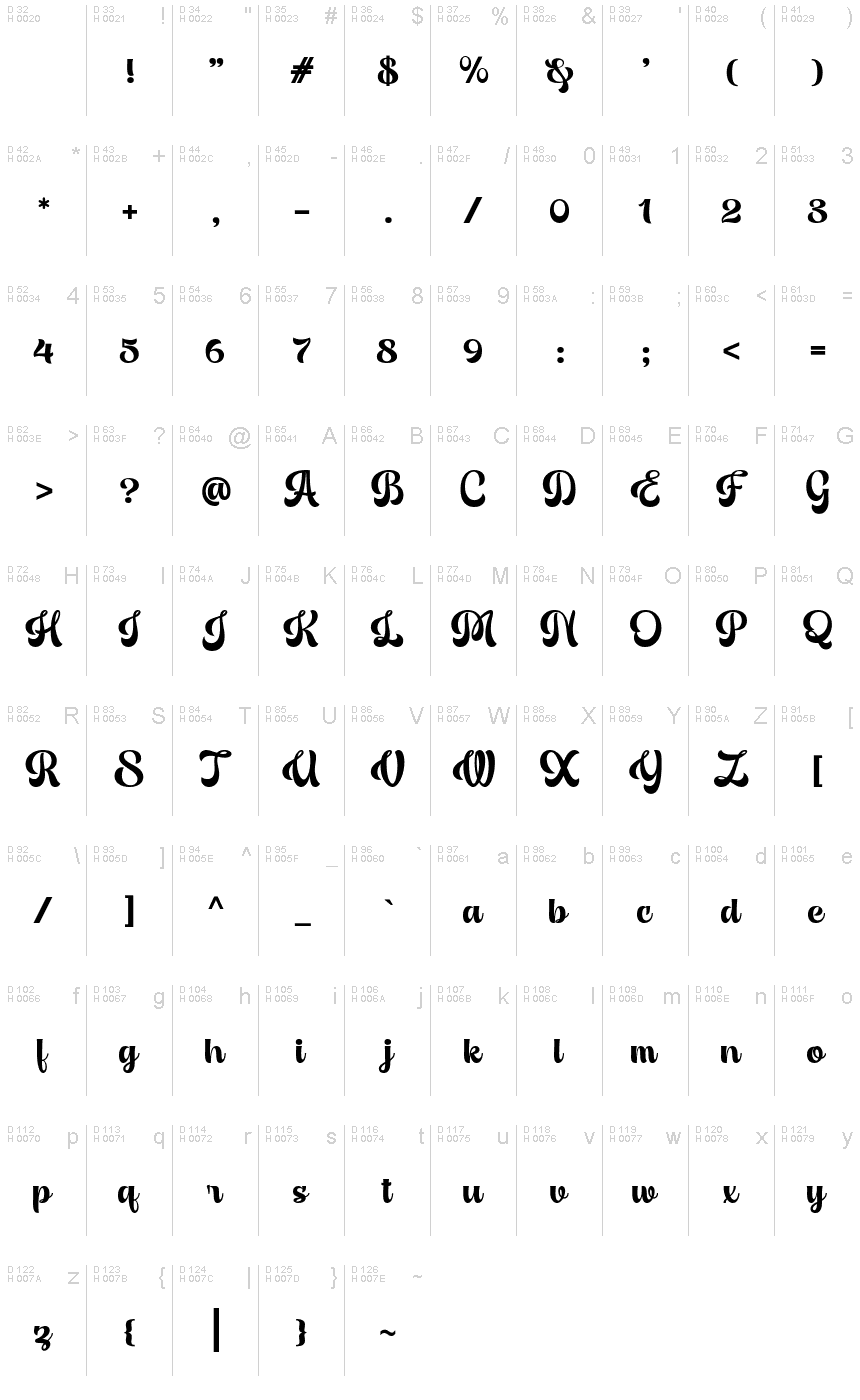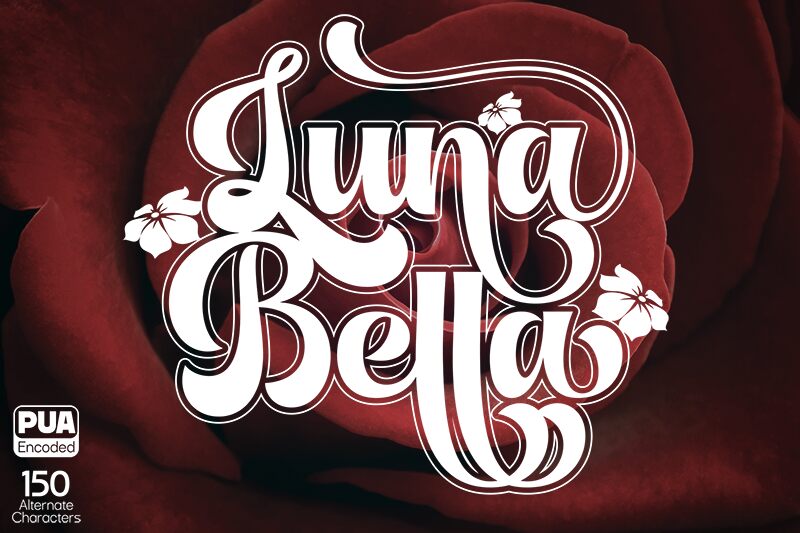
Luna Bella Regular
Luna Bella, the adorable brush font by Sign Studio, is here to add a touch of cuteness and boldness to your projects. With its playful strokes and bold weight, this font is perfect for children's book covers, whimsical invitations, quirky logos, and charming greeting cards. Let Luna Bella bring a delightful charm to your designs while capturing the attention of your audience. Its versatility allows it to effortlessly enhance any project that needs a dose of fun and creativity. Get ready to elevate your designs with Luna Bella's cute brush style!
Luna Bella
Luna Bella Font Family by Sign Studio